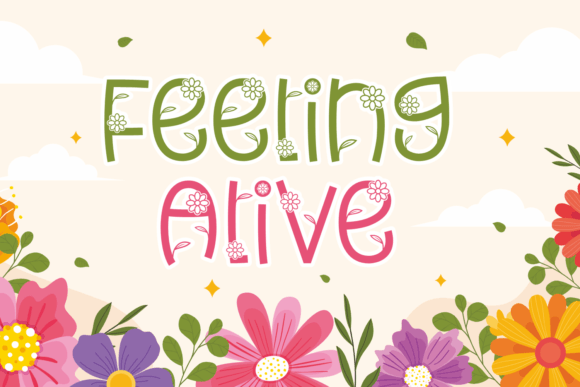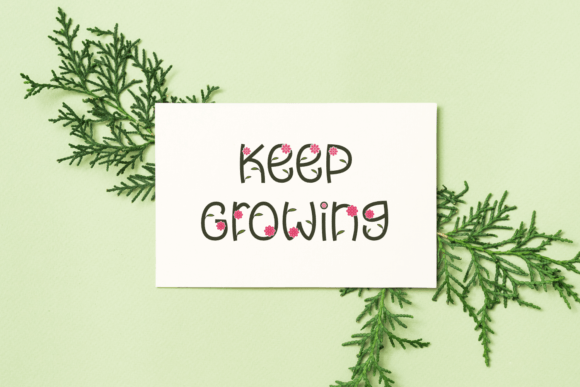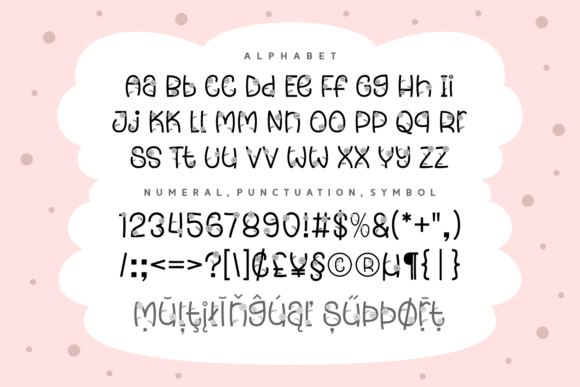
Introducing Amora Spring Font: The Whimsical Decorative Font for Fresh and Playful Designs
Are you looking for a font that can add a touch of nature to your text and bring a springtime feel to your designs? Look no further than Amora Spring Font, a delightful decorative font adorned with petite flowers. This charming font is perfect for projects that seek a fresh and playful vibe, making it ideal for designers and crafters who want to create beautiful and eye-catching designs.
The Charm of Amora Spring Font
Amora Spring Font is a whimsical decorative font that is designed to add a touch of elegance and sophistication to your text. The font features petite flowers that are intricately woven into every letter, creating a beautiful and delicate design that is sure to capture the attention of your audience. The font’s playful and fresh vibe makes it perfect for a wide range of design projects, from invitations and cards to posters and social media graphics.
Key Features of Amora Spring Font
- Delicate Floral Design: Amora Spring Font features a beautiful floral design that is intricately woven into every letter. The petite flowers add a touch of elegance and sophistication to your text, making it perfect for designs that require a fresh and playful vibe.
- Whimsical Charm: The font’s whimsical charm makes it perfect for designs that require a touch of personality and character. The font’s playful and carefree design is sure to capture the attention of your audience and leave a lasting impression.
- Perfect for Spring-Inspired Designs: The font’s spring-inspired design makes it perfect for designs that require a fresh and playful vibe. Use the font to create beautiful spring-themed designs, from invitations and cards to posters and social media graphics.
Uses of Amora Spring Font
Amora Spring Font is a versatile font that can be used for a wide range of design projects. Here are some of the most popular uses of the font:
- Invitations and Cards: Use Amora Spring Font to create beautiful invitations and cards for special occasions, such as weddings, birthdays, and baby showers.
- Posters and Flyers: The font’s playful and fresh vibe makes it perfect for posters and flyers that require a touch of personality and character.
- Social Media Graphics: Use Amora Spring Font to create eye-catching social media graphics that are sure to capture the attention of your audience.
- Crafting and DIY Projects: The font’s whimsical charm makes it perfect for crafting and DIY projects, such as scrapbooking, journaling, and handmade cards.
Tips for Using Amora Spring Font
Here are some tips for using Amora Spring Font in your design projects:
- Use it Sparingly: Use Amora Spring Font sparingly to add a touch of elegance and sophistication to your text. Overusing the font can make your design look cluttered and overwhelming.
- Pair it with Other Fonts: Pair Amora Spring Font with other fonts to create a unique and eye-catching design. The font’s playful and fresh vibe makes it perfect for pairing with bold and modern fonts.
- Experiment with Colors: Experiment with different colors to find the perfect combination that complements the font’s floral design. Pastel colors, such as pink, blue, and yellow, work well with the font’s spring-inspired design.
Amora Spring Font is a delightful decorative font that is perfect for designers and crafters who want to add a touch of nature to their text. The font’s whimsical charm and playful vibe make it ideal for a wide range of design projects, from invitations and cards to posters and social media graphics. With its delicate floral design and easy-to-use features, Amora Spring Font is a must-have font for anyone looking to create beautiful and eye-catching designs.